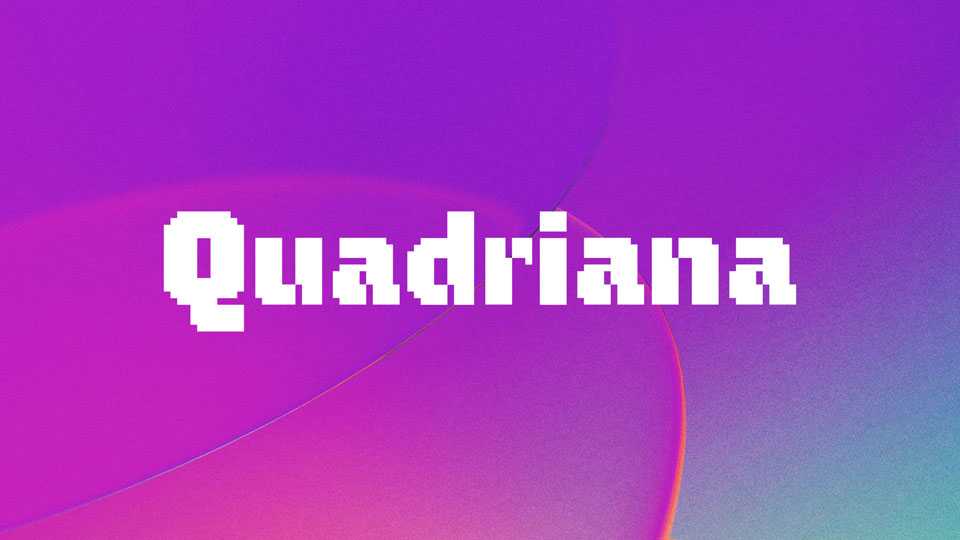
Download Quadriana font, a bold and impactful pixel typeface that blends the retro charm of blocky pixels with the subtle sophistication of inktraps. Quadriana font is crafted with defined edges and inktraps, adding depth and character to the otherwise minimalist pixel design.
Designer: Echo Heo